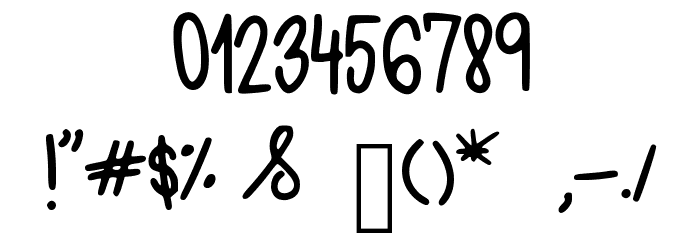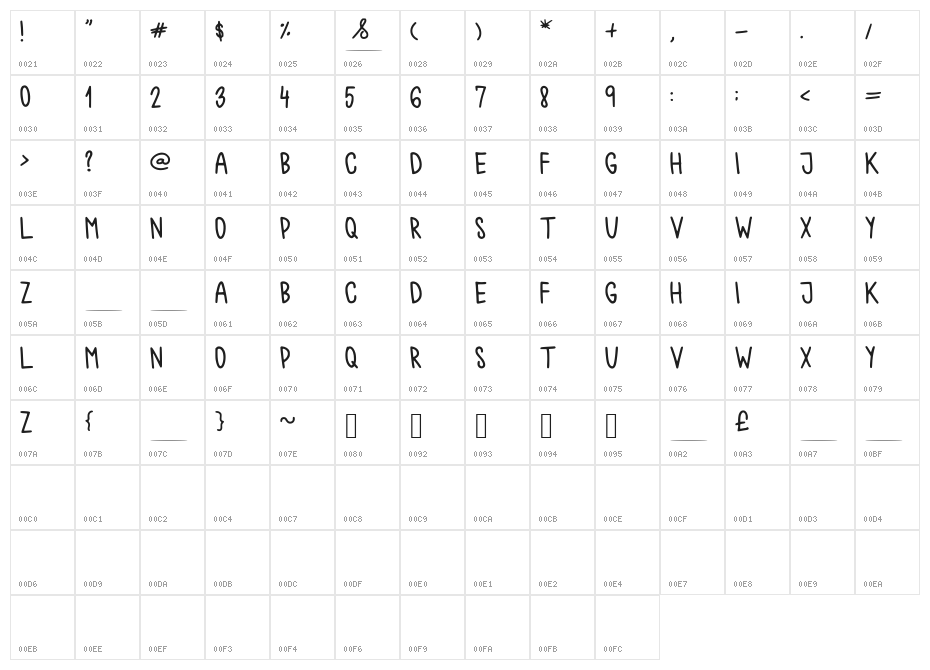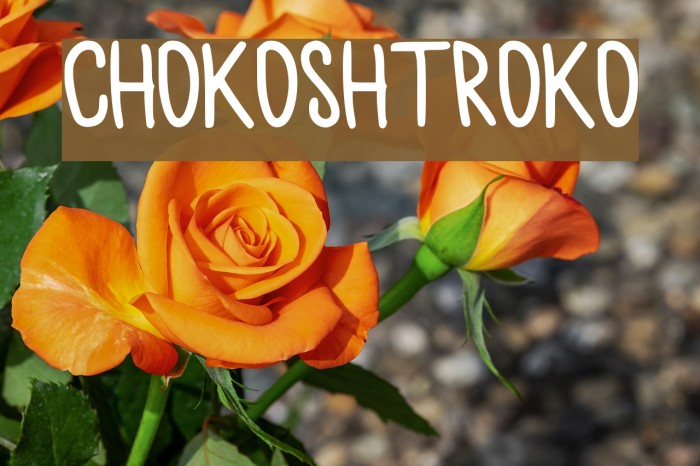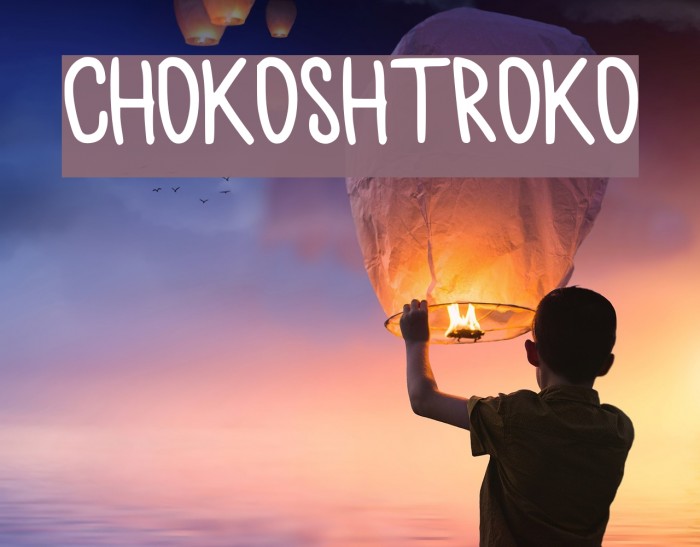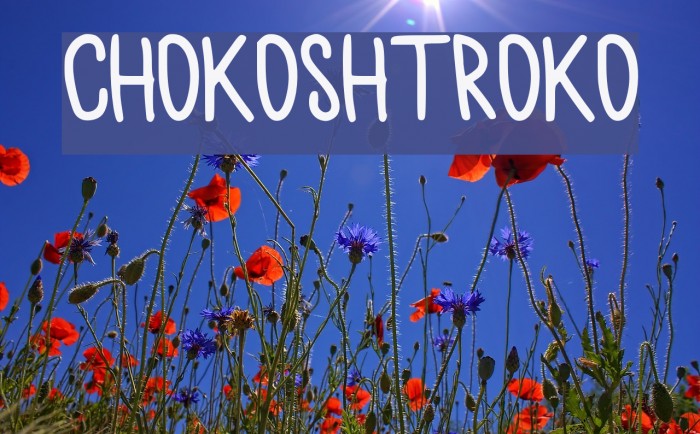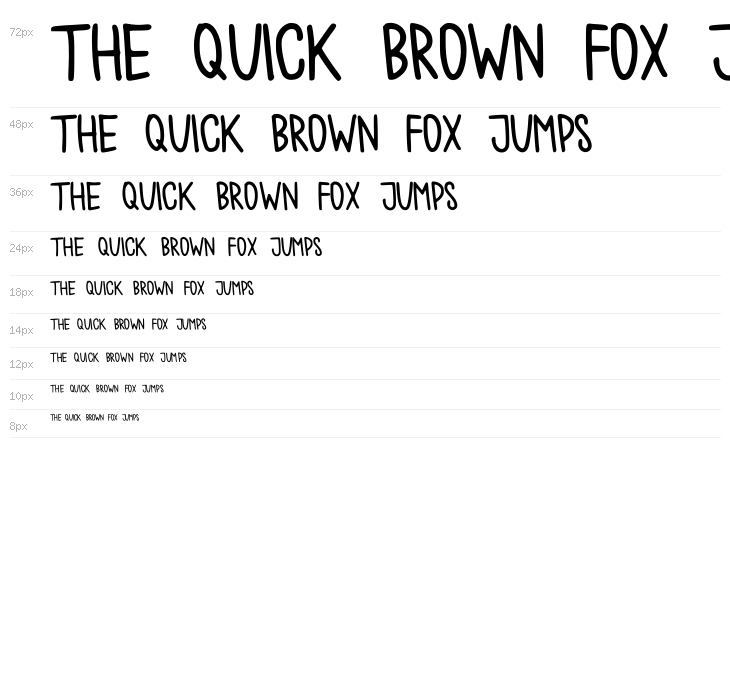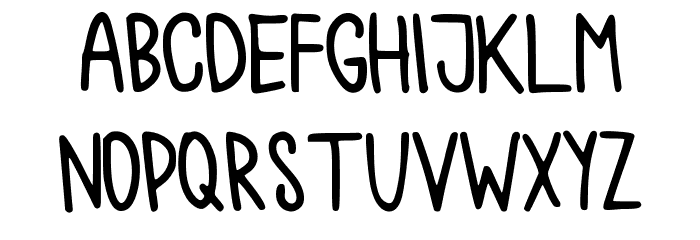
chokoshtroko Font
chokoshtroko Description
This playful and casual font features a handwritten style with smooth, rounded edges and a slightly irregular baseline, giving it a friendly and approachable appearance. The characters are bold and consistent in weight, with a medium contrast between thick and thin strokes. The font maintains a uniform width, making it easy to read while retaining a whimsical charm. Its informal nature makes it ideal for projects that require a personal touch or a fun, relaxed vibe. The character spacing is normal, ensuring good readability without feeling cramped or overly spaced out.
| Proposed Projects | Ideal for children's books, greeting cards, casual branding, and playful social media graphics. |